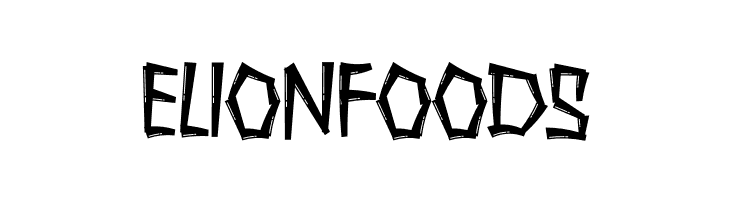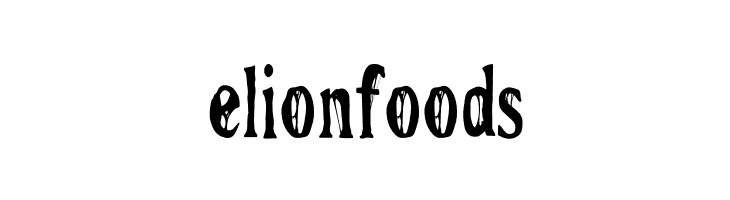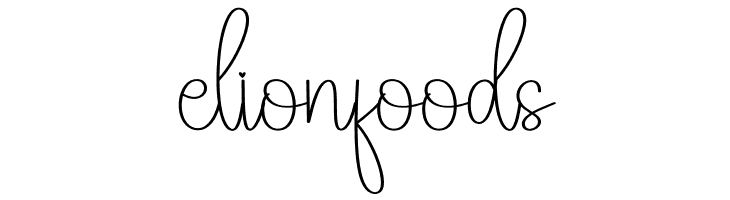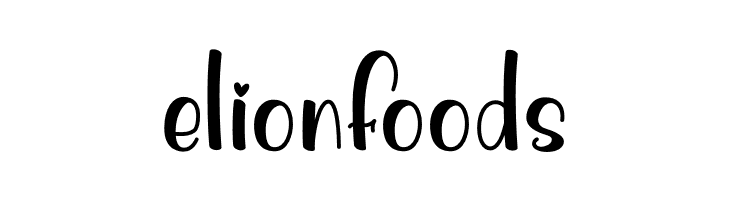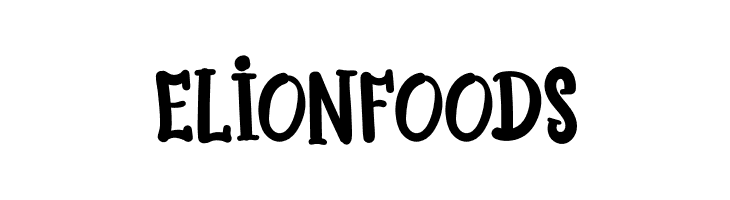
A spooky, Halloween-themed decorative font with ghostly and webbed elements.
A bold, italicized font with a spooky, Halloween-themed design.
A playful, spooky font with jagged, hand-drawn style perfect for Halloween themes.
A spooky, distressed font ideal for Halloween and horror themes.
A whimsical script font with flowing, interconnected letters and a playful, elegant style.
Playful handwritten font with a whimsical style.
Bold, brush-style display font with a spooky, hand-drawn vibe.
Bold, dripping display font with a playful and spooky vibe.
A bold, decorative Halloween-themed display font with playful, spooky details.
A quirky, spooky display font with tall, uneven letterforms.